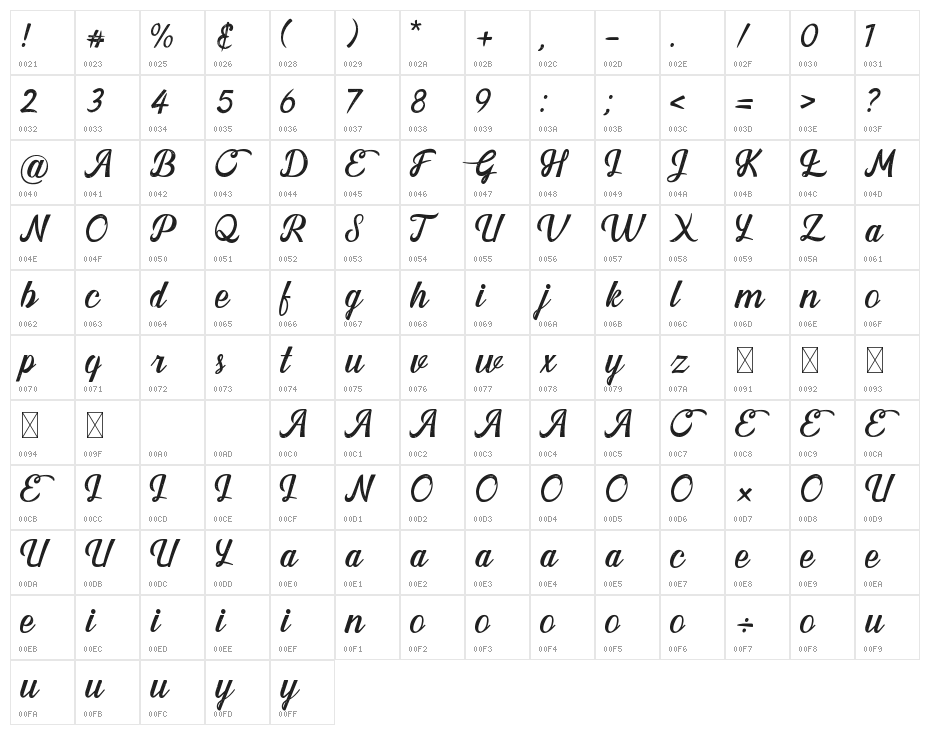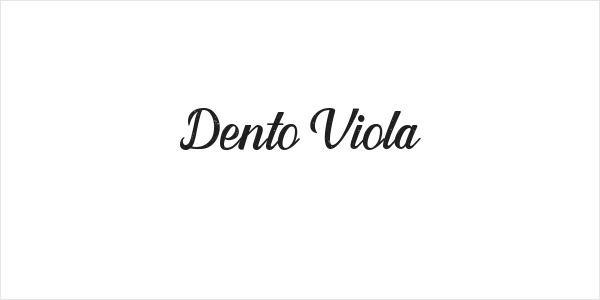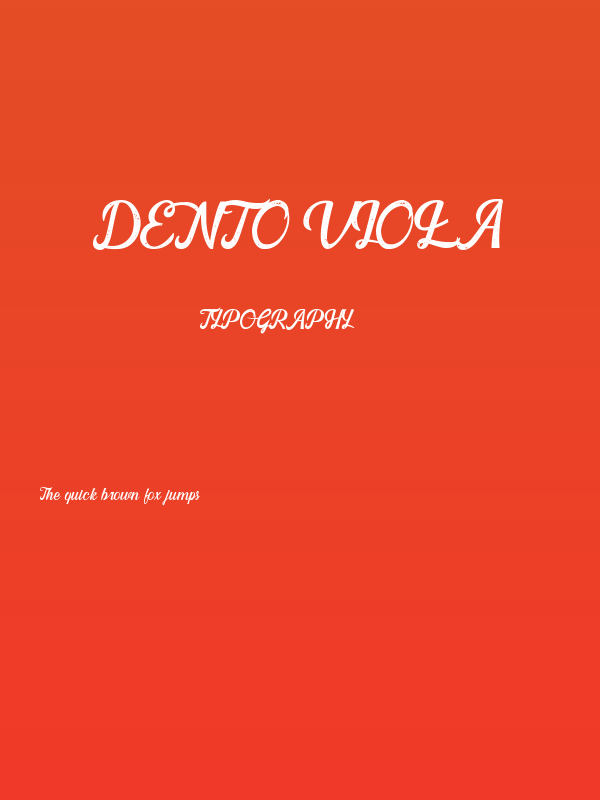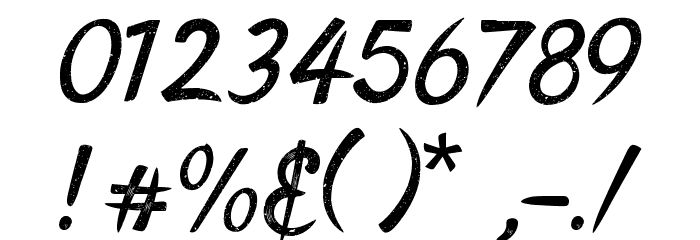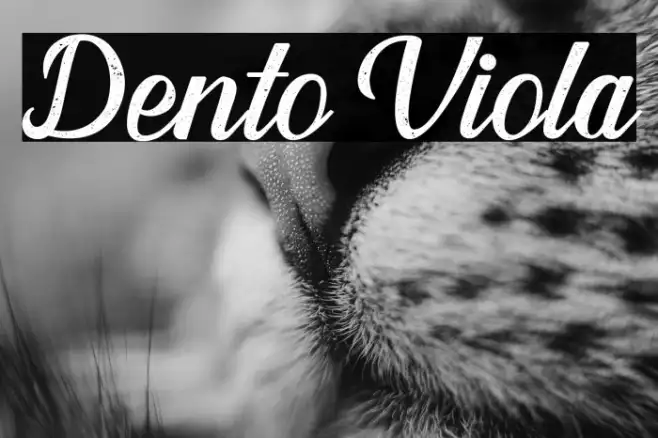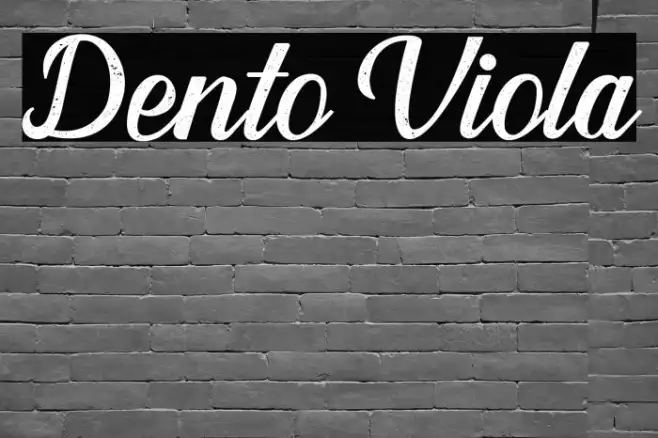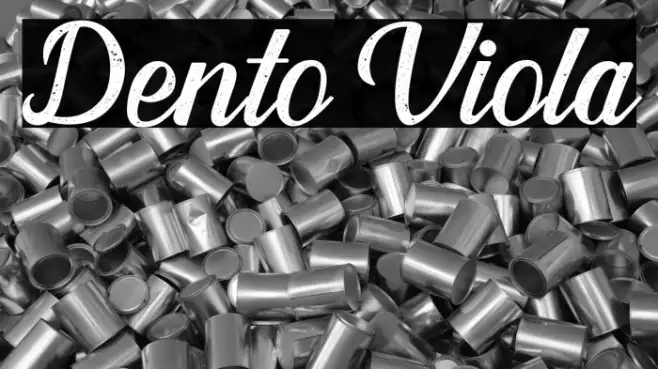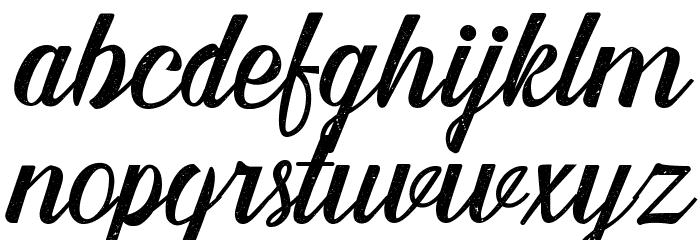
Dento Viola Font
Dento Viola Description
This font features a bold, script style with a textured appearance, giving it a vintage and handcrafted feel. The letters are connected, creating a flowing and elegant look, reminiscent of classic calligraphy. The uppercase letters are slightly larger and more ornate, while the lowercase letters maintain a consistent style, enhancing readability. Numbers and special characters are included, maintaining the same textured and flowing design. This font is ideal for projects that require a touch of elegance and a handcrafted aesthetic.
| Proposed Projects | Ideal for wedding invitations, branding, packaging, and vintage-themed designs. |